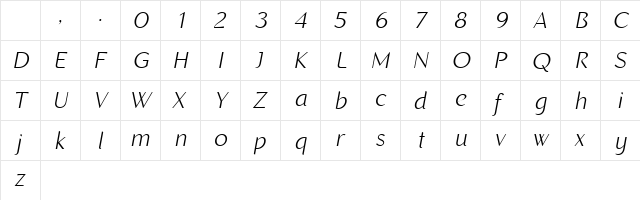
Recline Light is a composed and adaptable typeface that performs quietly and consistently across a wide range of design contexts. The slanted form adds forward momentum and visual energy. Its slender proportions lend an understated elegance to any composition.
Pro Tip: Use Recline Light for emphasis, pull quotes, and subheadings where its slanted energy can add rhythm to the layout.